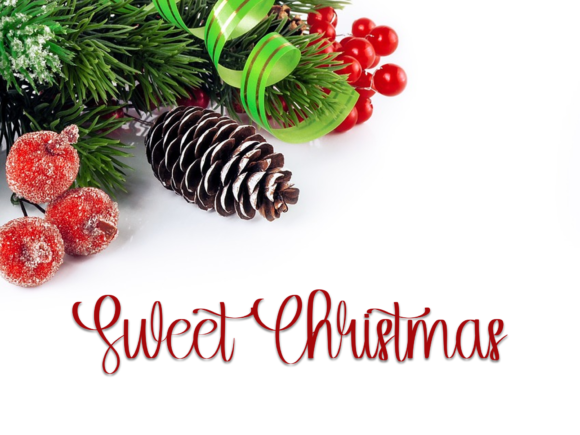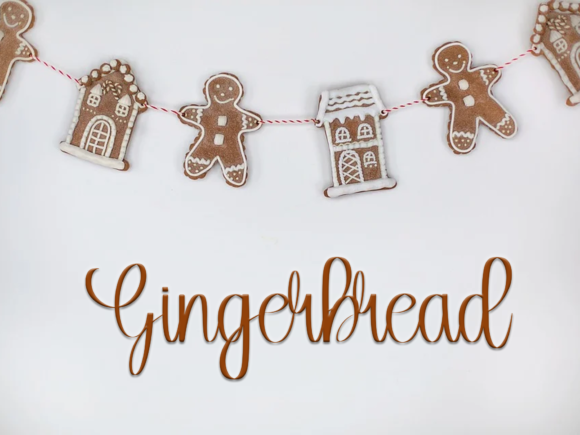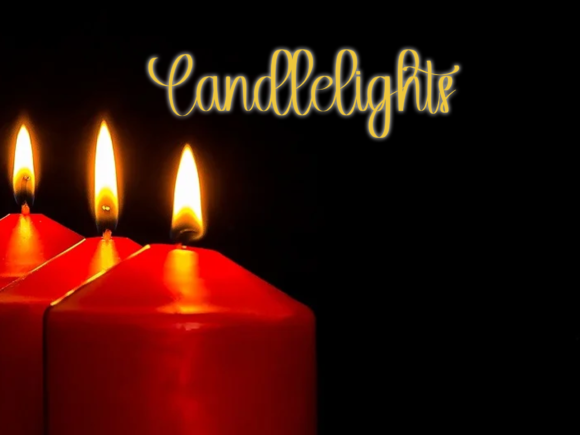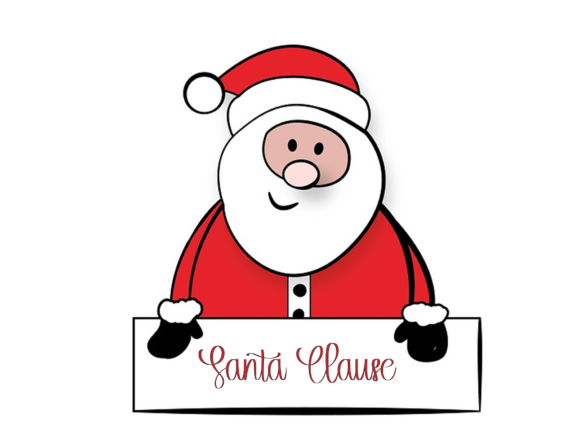
The Magic of Christmas Font: A Designer’s Delight
I still remember the holiday season last year when I was working on a Christmas-themed project for a client. I had all the elements in place – the colors, the graphics, the overall aesthetic – but something was missing. That’s when I realized I needed the perfect font to bring it all together. After hours of searching, I stumbled upon Christmas Font, and it was love at first sight! ✨ In this article, I’ll share my experience with this beautiful font, its features, and how to make the most of it in your designs.
An Honest Review of Christmas Font
Christmas Font is a handwritten font that has been crafted with great precision to produce a maximum effect. Here’s what I love about it:
- 🎄 **Unique and festive**: Christmas Font has a distinct, holiday feel that sets it apart from other fonts.
- ✅ **Highly versatile**: It can be used for a wide range of products, from invitations and greeting cards to social media graphics and website headers.
- ✨ **Easy to read**: Despite its decorative nature, Christmas Font remains clear and legible, making it perfect for conveying messages.
However, I did notice a few quirks:
- 🤔 **Limited use outside of holidays**: While Christmas Font is amazing for holiday-themed designs, it might not be the best choice for other types of projects.
- ⚠️ **Glyph limitations**: Some users might find the glyph set a bit limited, especially when compared to more extensive font libraries.
The Story Behind Christmas Font
Christmas Font was designed with the holiday season in mind. The creator, a passionate typographer, aimed to craft a font that would capture the essence of Christmas – warmth, joy, and festivity. With its precise lines and elegant feel, Christmas Font has become a favorite among designers and crafters.
| Font Name | Christmas Font |
| Author | PAYJHOshop |
| What type of projects is Christmas Font best suited for? | Christmas Font is perfect for holiday-themed projects, such as invitations, greeting cards, social media graphics, and website headers. |
| Is Christmas Font easy to read? | Yes, despite its decorative nature, Christmas Font remains clear and legible, making it suitable for conveying messages. |